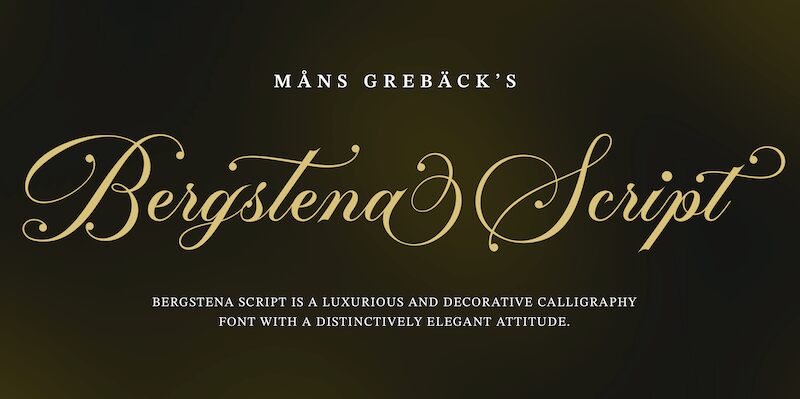
Bergstena Script font by Mans Greback in the Bergstena family is a free luxurious decorative calligraphy display font. Its sculpted caps sweep in long, inky curves with teardrop terminals, while the lowercase glides in a calm, legible rhythm that keeps words readable even with generous flourish. Contrast is crisp without feeling brittle, and the spacing feels hand-set—like lines drawn by a steady nib on smooth cotton paper.
Using Bergstena Script, headlines sing on wedding invitations, boutique logos, perfume or wine labels, certificates, restaurant menus, and event signage. This free font shines when you give it space and size, letting those loops breathe. For balance, pair its ornate titles with a clean, light sans for body copy, and keep the sans slightly tighter to accentuate Bergstena Script’s flowing cadence.